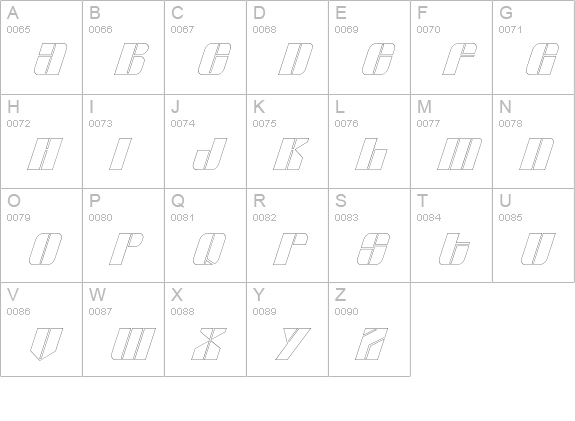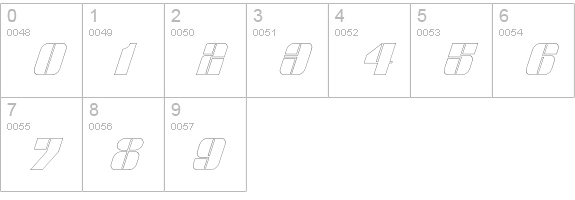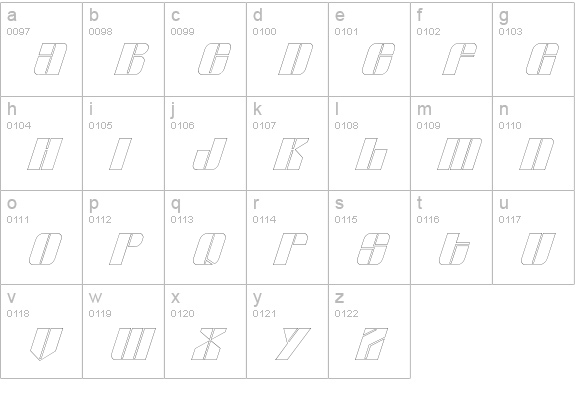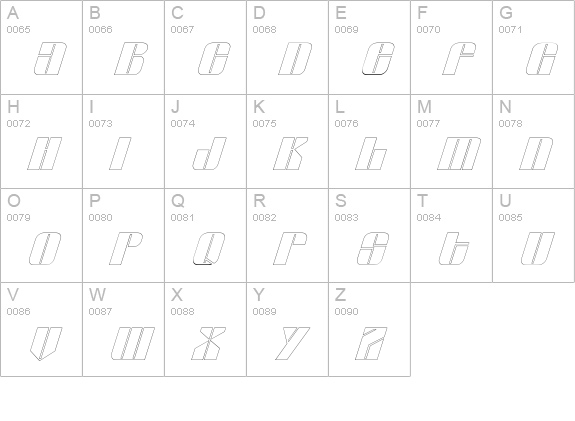
GlyphicSeriesOutlineItalic Font Details
The Glyphic Series Outline Italic font is a stylish and modern typeface that exudes elegance and sophistication. Its sleek lines and unique design make it perfect for adding a touch of class to any project. The italic style adds a sense of flair and dynamism to the text, making it stand out on the page. This font is ideal for use in a wide range of design projects, from branding and advertising to invitations and social media graphics. Whether you're looking to create a professional logo or add a touch of sophistication to your website, the Glyphic Series Outline Italic font is sure to impress. Best of all, this font is completely free to download at FontsMarket.com. Simply visit the website and start using this stylish typeface in your projects today. Don't miss out on the opportunity to enhance your designs with the Glyphic Series Outline Italic font!